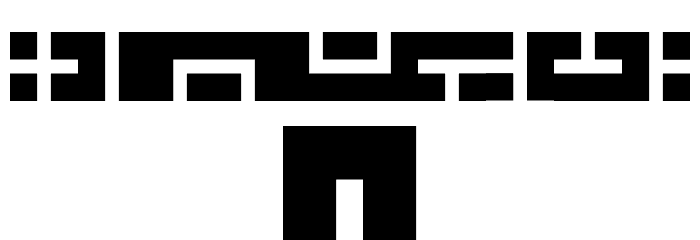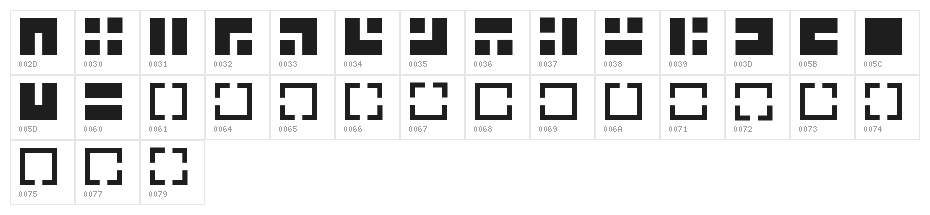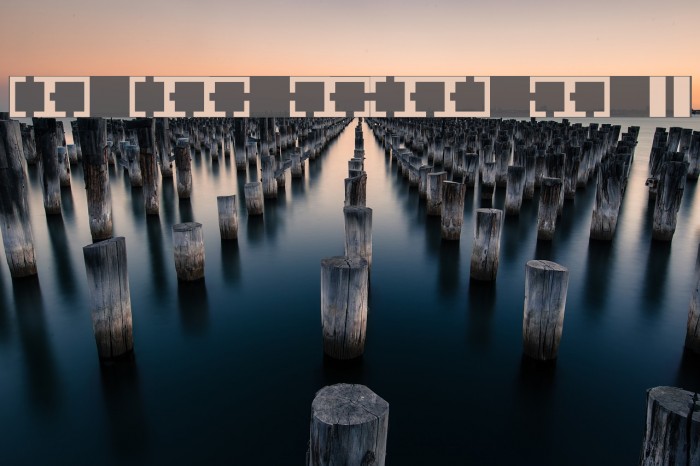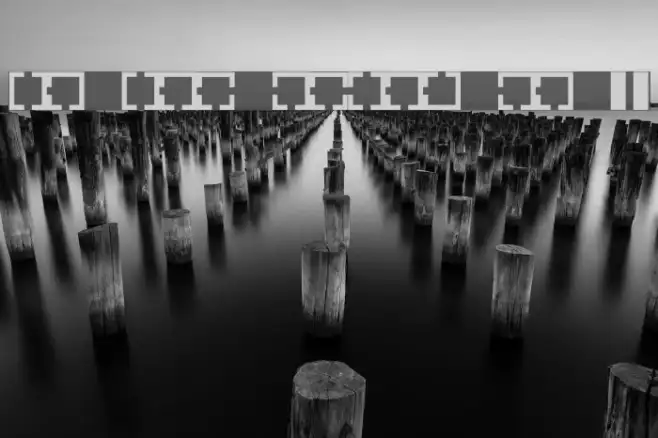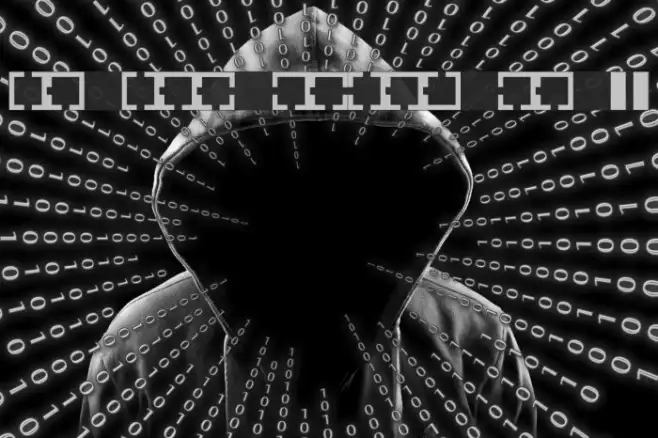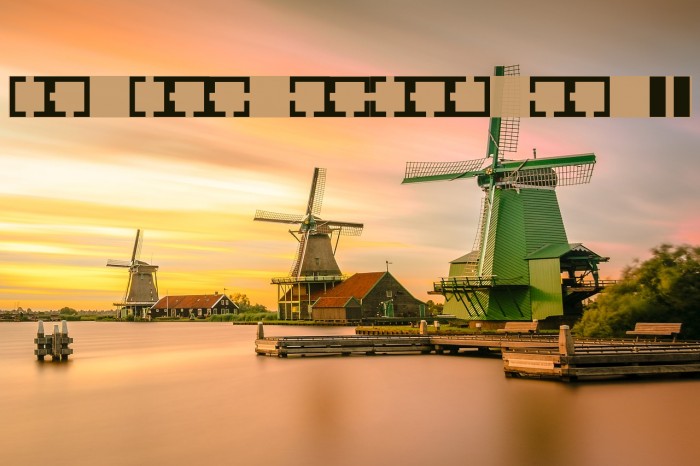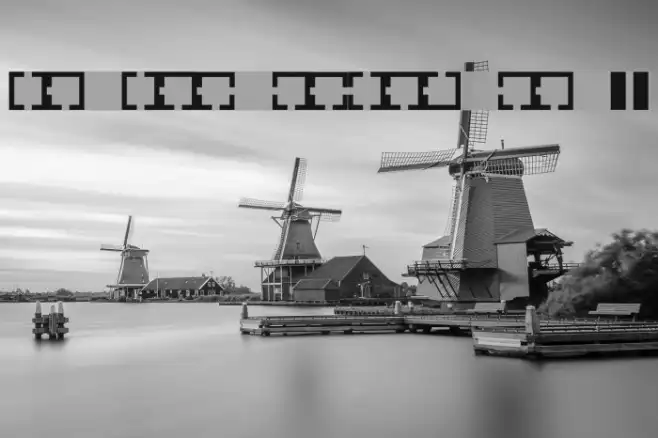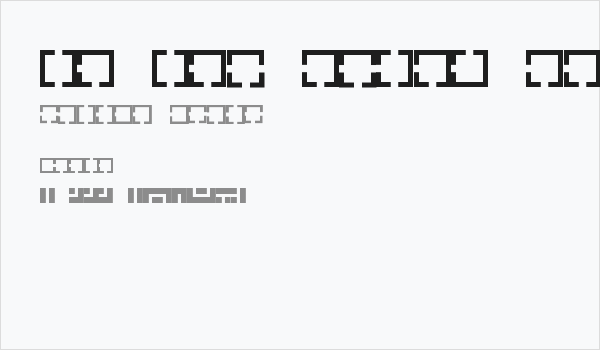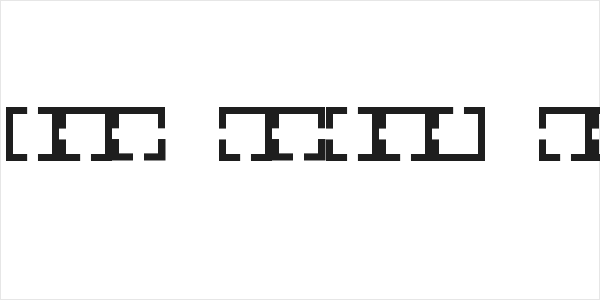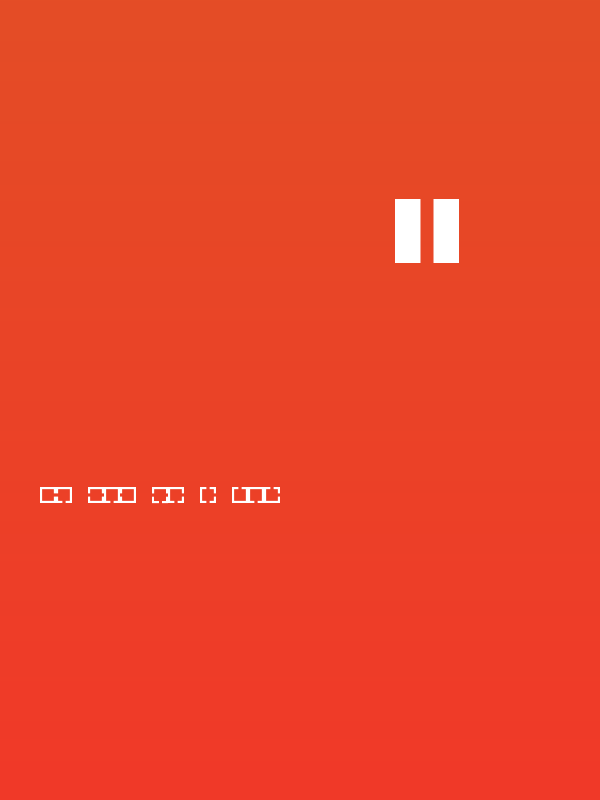
Maze Maker Inverted Level 1F Font
Maze Maker Inverted Level 1F Description
This font features a unique, maze-like design with intricate geometric patterns. Each character is composed of bold, interconnected lines that create a sense of depth and complexity. The style is highly decorative, resembling a labyrinth with its angular and structured appearance. The characters are uniform in height, giving a consistent visual flow across the text. The font's design is eye-catching and would stand out in any creative project. Its distinct style makes it suitable for use in artistic and modern contexts, where a bold statement is desired.
| Proposed Projects | Ideal for artistic projects, modern posters, creative branding, and unique logo designs. |